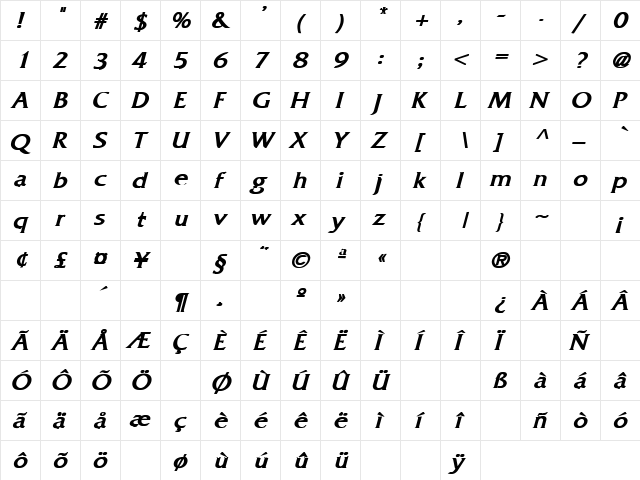
Keep Talking 4 Bold Italic
Design Context for Keep Talking 4 Typeface
Keep Talking 4 is a composed and adaptable typeface that performs quietly and consistently across a wide range of design contexts. The slanted form adds forward momentum and visual energy. The heavy weight commands attention and anchors typographic hierarchies.
Pro Tip: Use Keep Talking 4 for emphasis, pull quotes, and subheadings where its slanted energy can add rhythm to the layout.